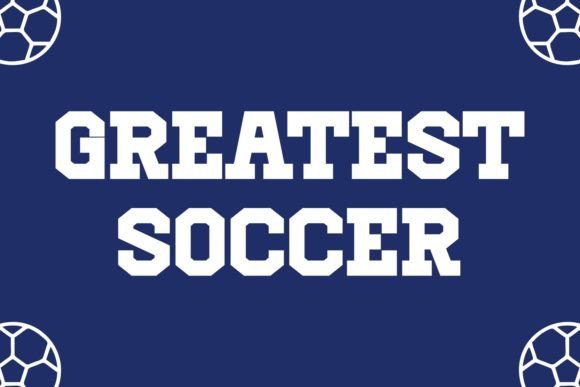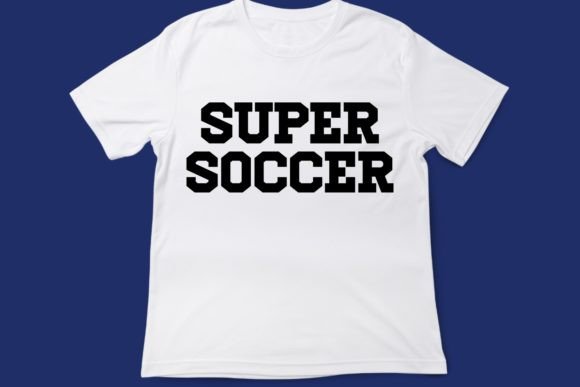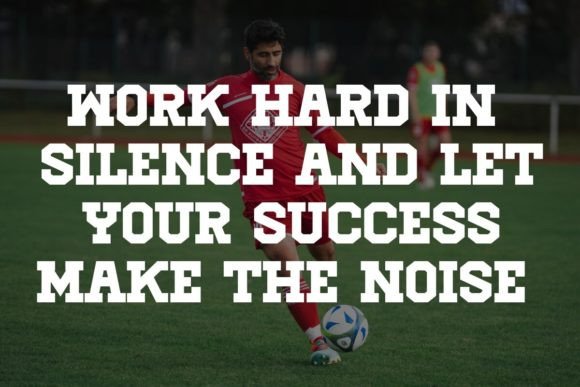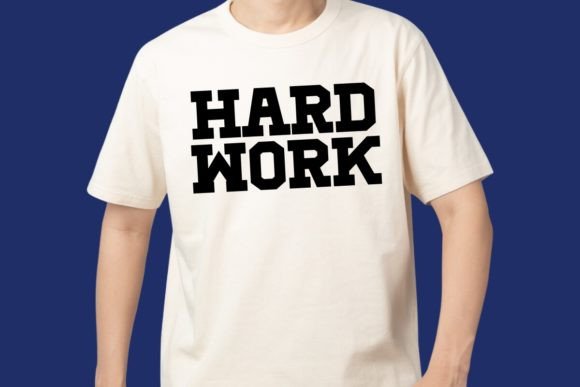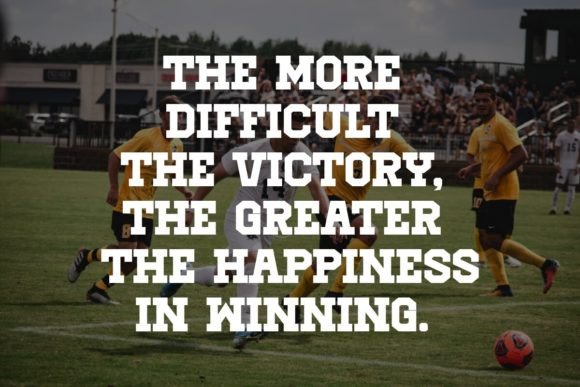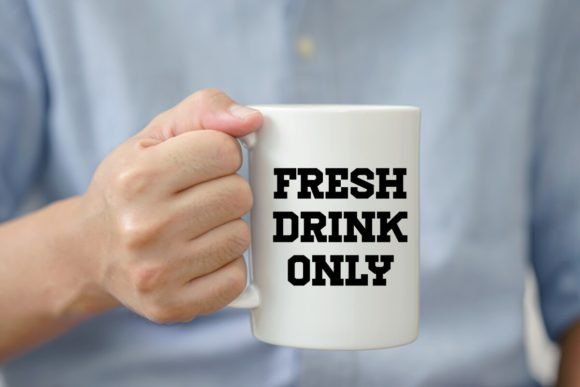
Introduction to Retro Soccer Font Font
Fonts play a crucial role in design, and the Retro Soccer Font font is a typeface that brings both character and versatility to any project. Whether you’re working on a branding project, a website, or a print design, the Retro Soccer Font font offers a unique style that can elevate your work.
Retro Soccer is a modern and unique condensed slab serif font.
This font brings a bold and energetic vibe with a modern vintage touch to your creative works Perfect for quotes, backgrounds, sports apparel, t-shirts, mugs, pillows and tote bags.
Key Features of Retro Soccer Font Font
Why Choose Retro Soccer Font Font?
The Retro Soccer Font font is more than just a typeface – it’s a design tool that helps you communicate your message with style and clarity. Its unique character set and versatile design make it suitable for a wide range of applications, from elegant invitations to bold headlines.
With its carefully crafted letterforms and balanced proportions, the Retro Soccer Font font ensures readability and visual appeal across all mediums.
What makes Retro Soccer Font font special?
The Retro Soccer Font font stands out with its unique design, exceptional readability, and versatility across various design applications.